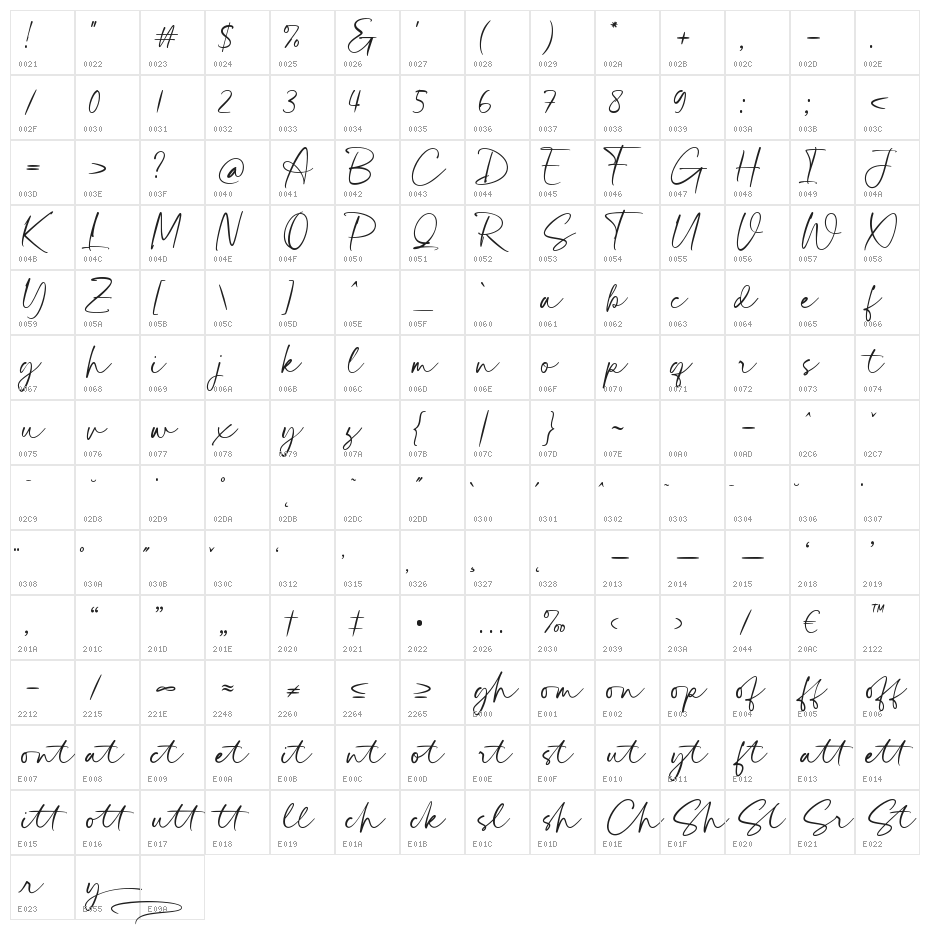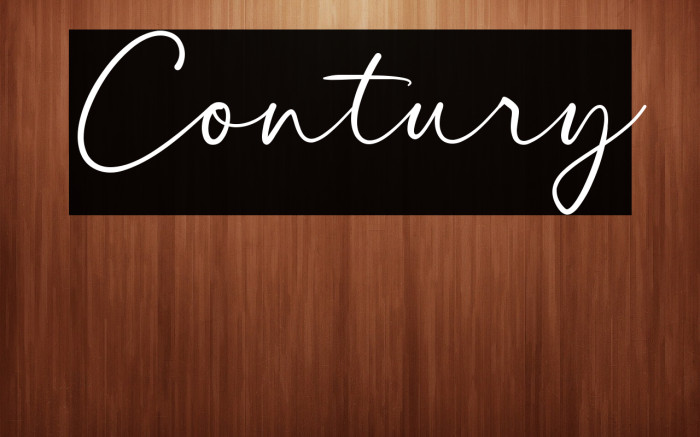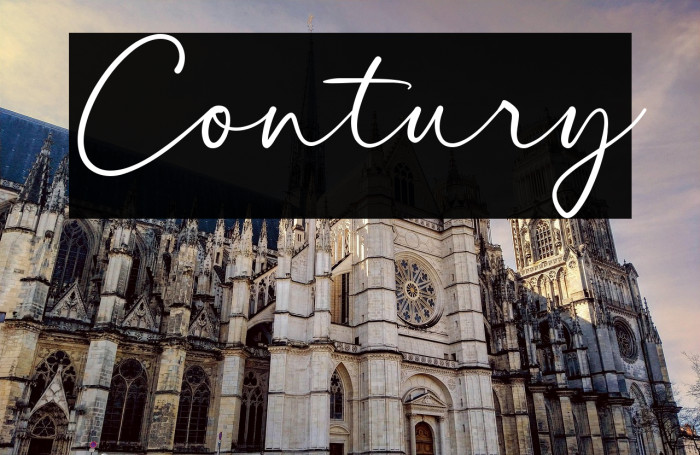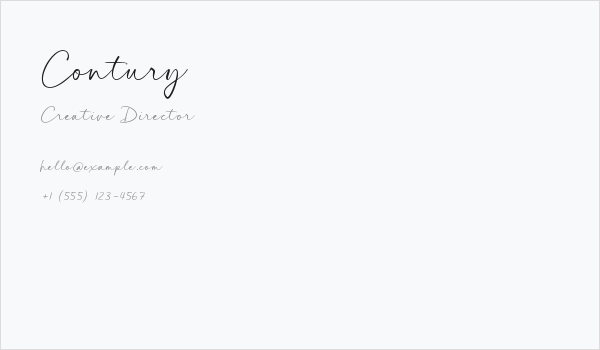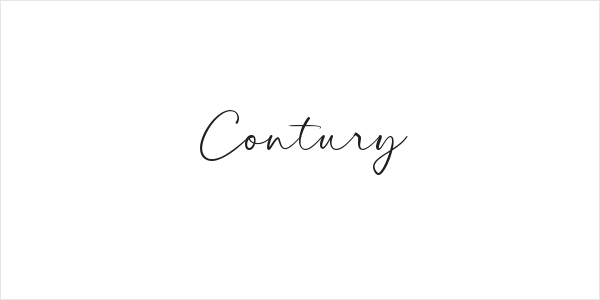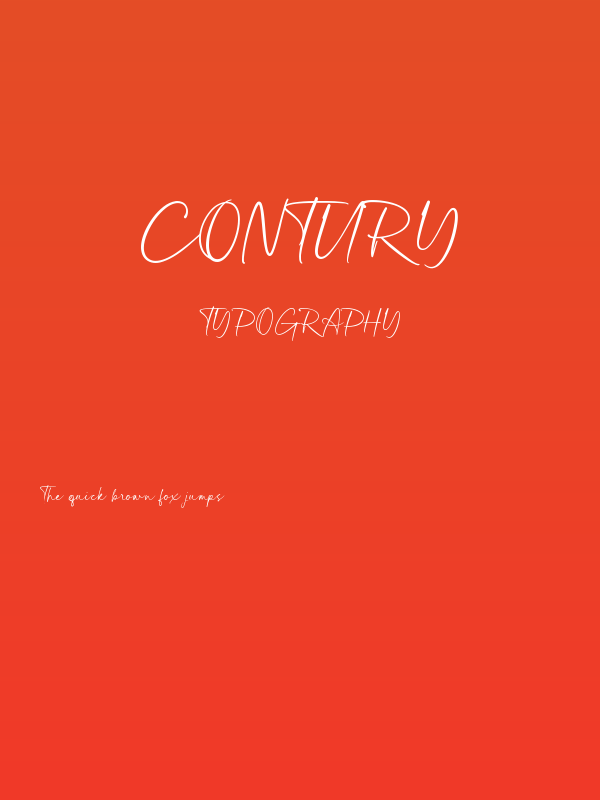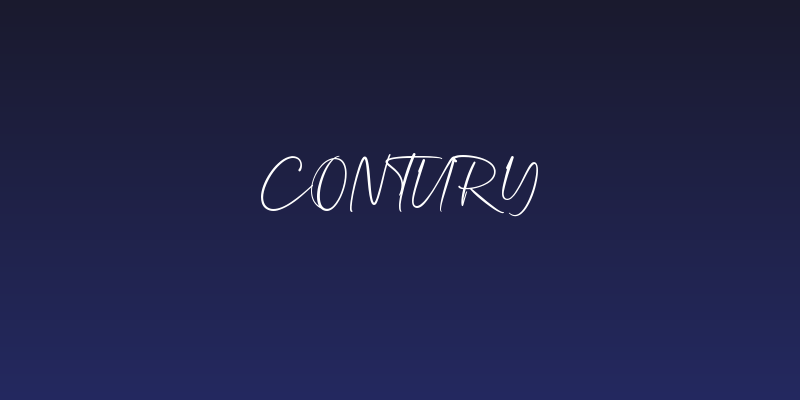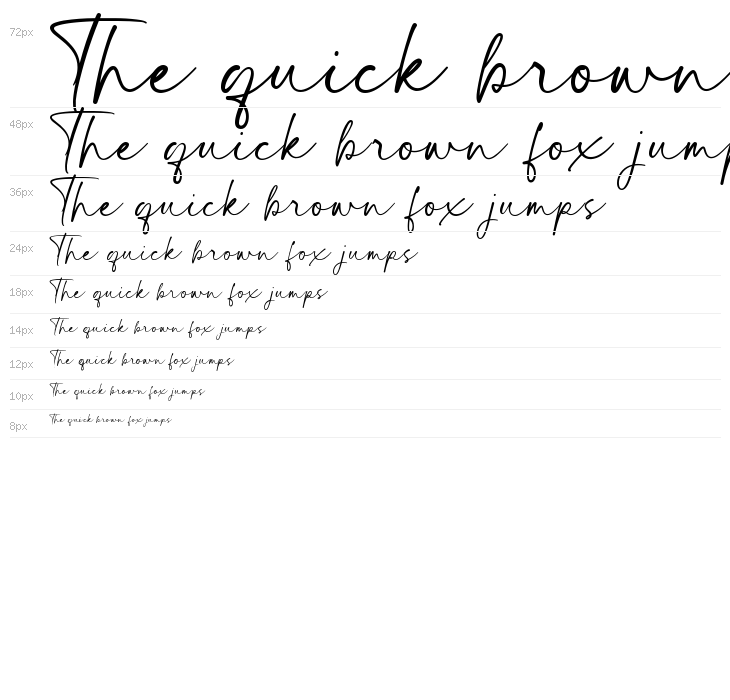
Contury Font
Contury Description
This font features a flowing, cursive style that mimics natural handwriting. The uppercase letters are elegant and slightly elongated, while the lowercase letters maintain a consistent, smooth flow. The numbers are clear and legible, with a slight slant that adds to the handwritten feel. Special characters are well-integrated, maintaining the overall aesthetic. The font exudes a sense of elegance and personal touch, making it suitable for projects that require a personal or artistic flair.
| Overall Style | Elegant, Artistic |
| Use Case | Invitations, Personal notes, Artistic branding |
| Proposed Projects | Ideal for wedding invitations, personal letters, artistic projects, and branding that requires a personal touch. |